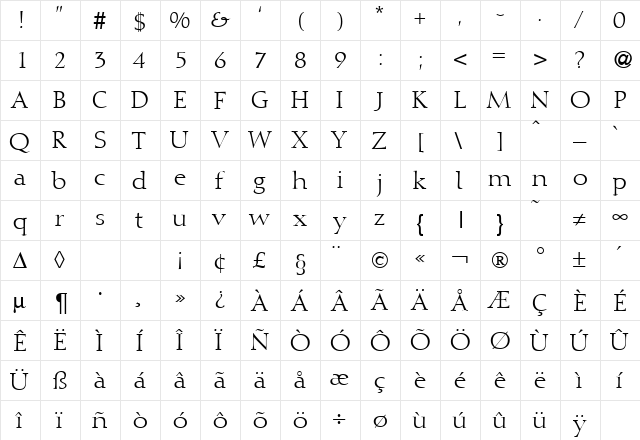
Dioscur Regular
Design Context for Dioscur Typeface
Dioscur offers clean, dependable letterforms without strong stylistic allegiance, making it a practical choice for designers who need flexibility.